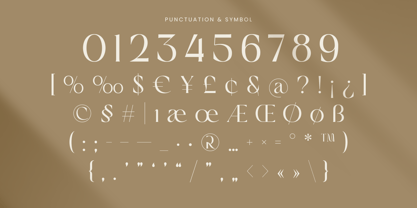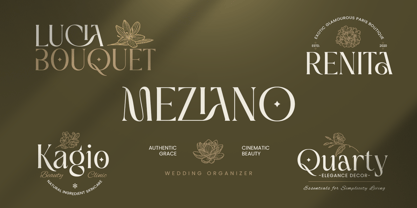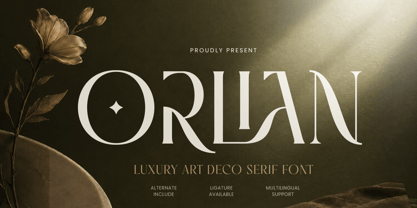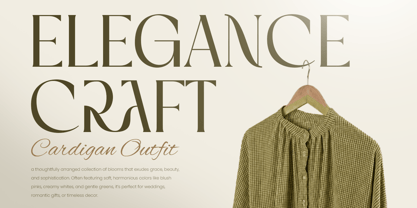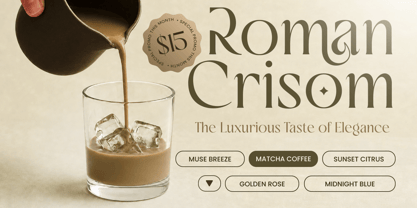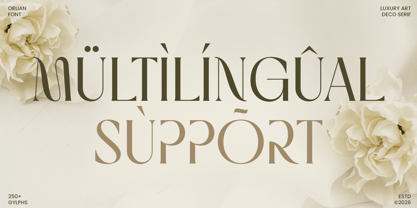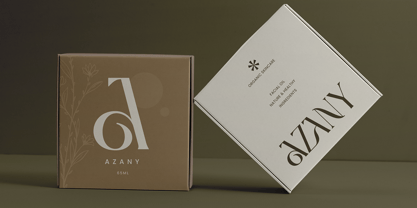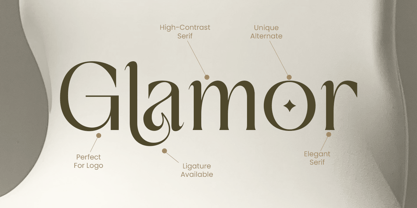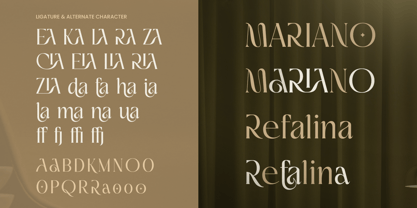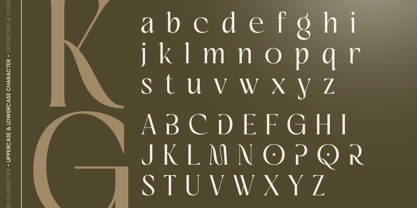
Orlian
ORLIAN is a luxury Art Deco serif font crafted to bring timeless glamour, refined geometry, and premium character to your creative projects. Inspired by classic Art Deco elegance and modern luxury design, this typeface is perfect for high-end branding, editorial layouts, fashion campaigns, packaging, invitations, and sophisticated logo design.
With its stylish serif details, balanced proportions, and decorative visual rhythm, ORLIAN gives every composition a polished and exclusive appearance. Its elegant structure makes it ideal for fashion labels, beauty brands, jewelry packaging, boutique identities, magazine titles, wedding stationery, and premium lifestyle products.
Whether used as a logo mark, headline, editorial title, or packaging centerpiece, ORLIAN delivers a distinctive combination of vintage charm and modern sophistication across both print and digital media.
ORLIAN – Luxury Art Deco Serif Font Features
• Luxury Art Deco serif style with refined vintage character
• Perfect for branding, logos, editorials, invitations, and premium packaging
• Elegant geometric details with sophisticated decorative appeal
• Ideal for fashion, beauty, jewelry, wedding, and lifestyle industries
• Uppercase, lowercase, numerals, and punctuation included
• OpenType features for enhanced typographic styling
Multilingual support for Afrikaans, Albanian, Asu, Basque, Bemba, Bena, Breton, Chiga, Cornish, Dutch, English, Estonian, Filipino, Finnish, Friulian, Galician, German, Gusii, Indonesian, Irish, Italian, Kabuverdianu, Kalenjin, Kinyarwanda, Luo, Luxembourgish, Luyia, Machame, Makhuwa-Meetto, Makonde, Malagasy, Manx, Morisyen, North Ndebele, Nyankole, Oromo, Portuguese, Quechua, Romansh, Rombo, Rundi, Rwa, Samburu, Sango, Sangu, Scottish Gaelic, Sena, Shambala, Shona, Soga, Somali, Spanish, Swahili, Swedish, Swiss, and more.
Create timeless glamour with ORLIAN – the perfect luxury Art Deco serif font for elegant branding, premium packaging, and refined editorial design.